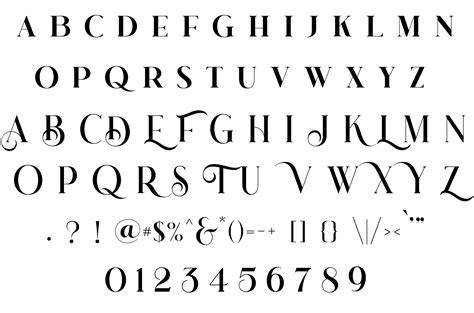
Explore The World Of Fancy Letter Fonts
What are Fancy Letter Fonts?
Fancy letter fonts are fonts that have a unique, stylish and decorative look. They are often used to create logos, titles, posters, banners, and other designs. These fonts are often used to give a personal touch to your designs and make them stand out from the crowd. Fancy letter fonts can be found in many different styles, including calligraphic, serif, sans serif, script, and more. They come in a variety of weights, sizes, and colors, so it's easy to find one that suits your project.
How to Use Fancy Letter Fonts
Fancy letter fonts can be used in a variety of ways. They can be used to create logos, titles, posters, banners, and more. For example, you could use a fancy letter font to create a logo for a business or a website. Additionally, you could use a fancy letter font to create a title for a book or a magazine article. Finally, you could use a fancy letter font to create a poster or banner advertisement.
Tips for Choosing Fancy Letter Fonts
When choosing a fancy letter font, you should consider the size, weight, and style of the font. Different fonts will have different characteristics, so it's important to choose one that suits your project. Additionally, you should make sure the font is legible and easy to read. It's also important to make sure the font is compatible with the software you are using. Finally, you should consider whether the font has any special features or symbols that could be used in your design.
Fancy letter fonts are a great way to add a unique and personal touch to any design. They come in a variety of styles, sizes, and colors, so it's easy to find one that suits your project. Additionally, there are many websites and software programs that offer a variety of fonts for purchase or download. When choosing a fancy letter font, it's important to consider the size, weight, and style of the font. Additionally, it's important to make sure the font is legible and easy to read. With a little bit of research, you can easily find the perfect font for your project.